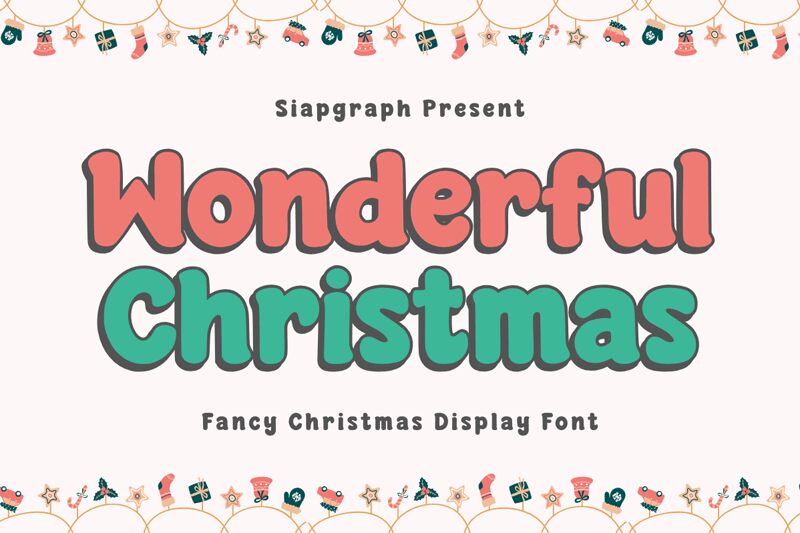
Wonderful Christmas Regular
Wonderful Christmas, a free Christmas display font by SiapGraph, uses a rounded, puffy silhouette that makes the lettering feel soft and full rather than crisp or formal. The repeated tall stems and deep, cushioned curves give the design a toy-like presence that keeps short words cheerful without turning into a novelty gag.
That shape makes sense on holiday cards, gift tags, Advent posters, seasonal shop headers, and festive social graphics where the lettering needs warmth more than refinement. It can also anchor bakery packaging or winter market signage, since the broad rounded forms hold their character in a few words and pair naturally with candy, cookies, and handmade decor.